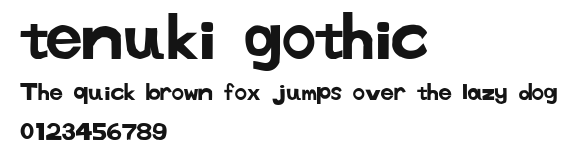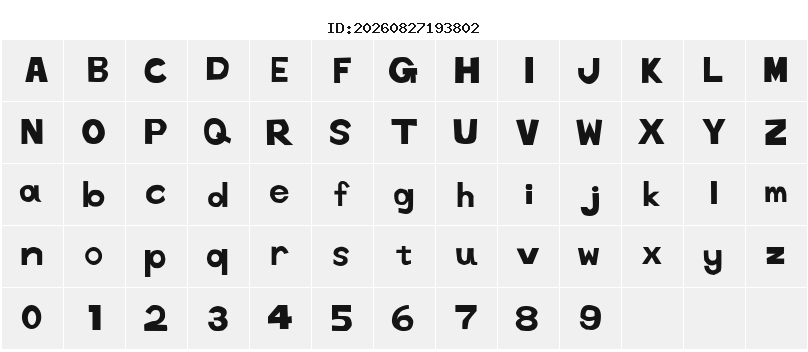
tenuki gothic Preview
• Font Name: tenuki gothic
• Full Font Name: tenuki gothic Normal
About tenuki gothic.ttf
tenuki gothic.ttf is a modern, elegant sans-serif font designed for ultimate readability and visual harmony. Perfect for branding, headlines, web design, and print materials.